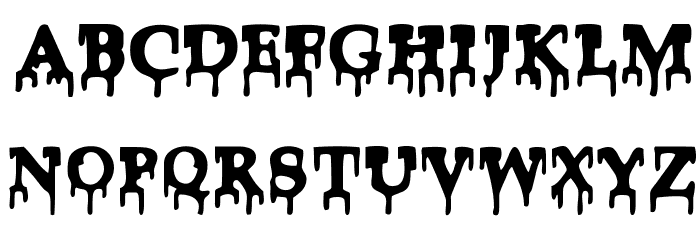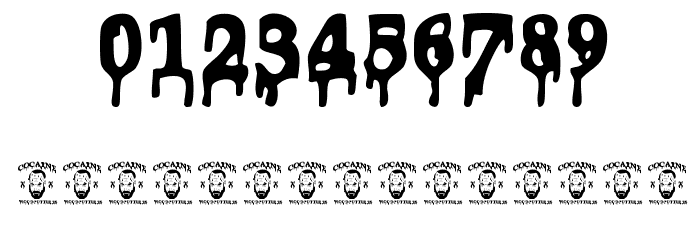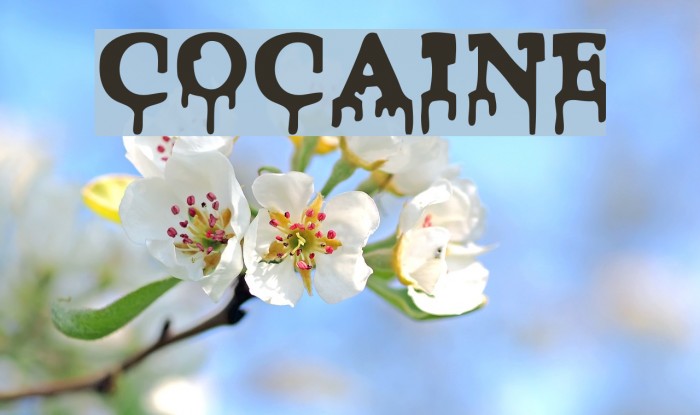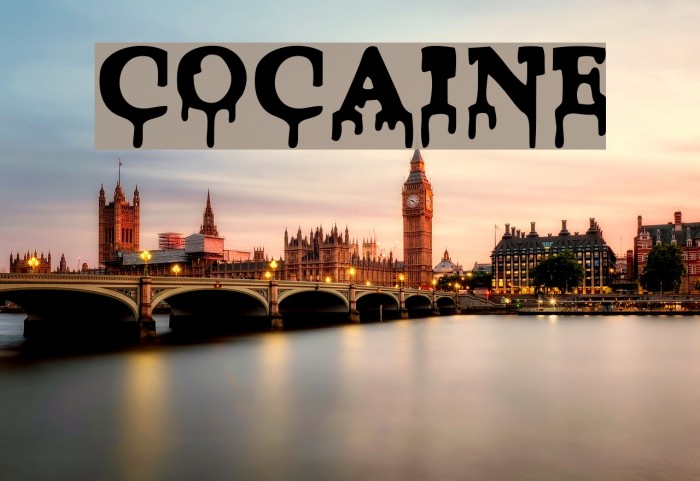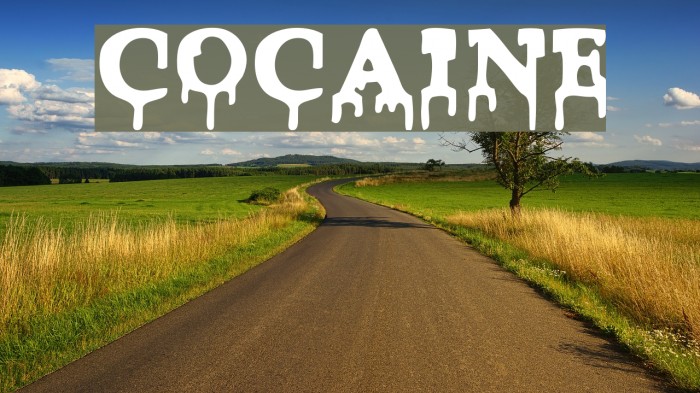
Cocaine Font
This font features a unique, dripping effect that gives it a bold and edgy appearance. The letters appear as if they are melting or dripping, creating a dynamic and visually striking look. This style is reminiscent of horror or Halloween themes, making it ideal for projects that require a dramatic and eye-catching font. The uppercase and lowercase letters maintain a consistent style, with the dripping effect applied uniformly across all characters. The numbers and special characters also follow this theme, ensuring a cohesive look throughout any text. The boldness of the font adds to its impact, making it suitable for titles, posters, or any design that needs to stand out.
A bold, dripping font perfect for horror or dramatic themes.
- Font: Cocaine
- Proposed Projects: Ideal for Halloween posters, horror movie titles, edgy graphic designs, and themed event invitations.
- Use Case: Headlines, Posters, Logos